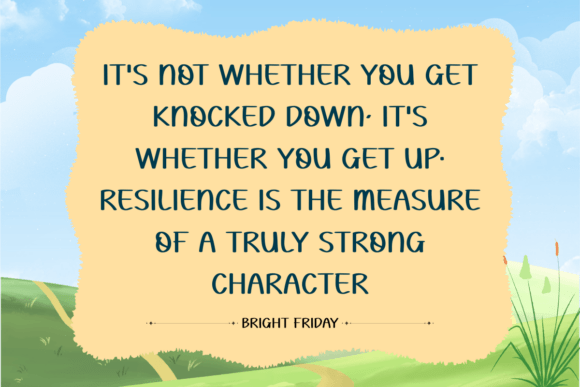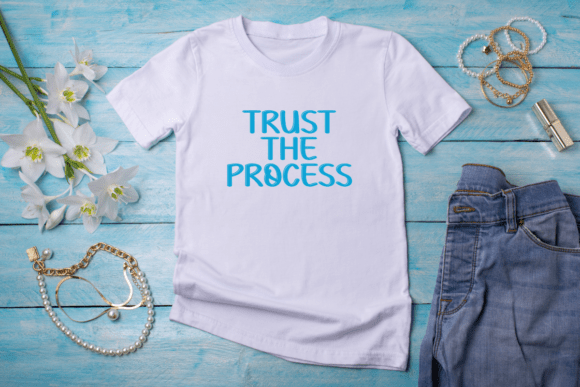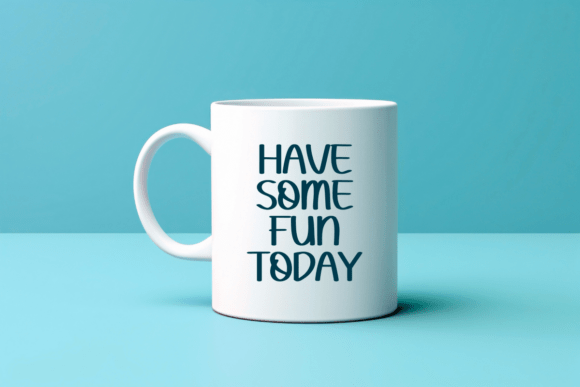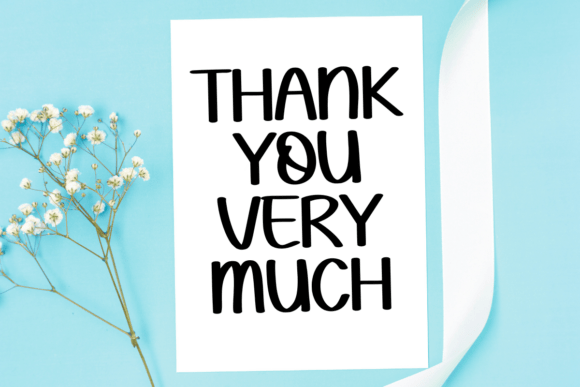
Discover the Uplifting Charm of Bright Friday Font
A Font that Spreads Joy and Positivity
Bright Friday is a cute sans-serif display font that’s full of optimism and clean charm. Its tall, neat letters are crafted to express freshness, joy, and lighthearted energy. The font balances playful personality with professional precision, making it versatile for creative projects that need a cheerful yet modern look. Whether you’re working on posters, brand logos, social media graphics, children’s books, or packaging, Bright Friday instantly brightens up any design with its clear lines and youthful appeal.
So, what do I love about Bright Friday Font? Here are a few highlights:
- ✨ Fresh and Modern Look: Bright Friday has a unique, uplifting quality that makes it perfect for lifestyle brands or creative projects that celebrate brightness, creativity, and approachability.
- ✅ Highly Versatile: This font works beautifully for a wide range of applications, from posters and logos to social media graphics and children’s books.
- ✅ Easy to Read: The clean lines and neat letters make it easy to read, even at smaller sizes.
- ✅ Playful yet Professional: Bright Friday strikes the perfect balance between playfulness and professionalism, making it suitable for both creative and corporate projects.
Now, are there any quirks or limitations? 🤔 A few things to keep in mind:
- ⚠️ Limited Stylistic Options: While Bright Friday has a range of glyphs and stylistic alternates, it’s not as extensive as some other fonts on the market.
- ⚠️ Not Ideal for Body Text: Due to its display nature, Bright Friday is best used for headlines, titles, and short paragraphs, rather than lengthy body text.
The Story Behind Bright Friday Font
Bright Friday Font was designed with the intention of spreading joy and positivity through typography. The designer aimed to create a font that would be both playful and professional, making it perfect for a wide range of creative projects. The result is a font that exudes warmth, friendliness, and approachability.
| What type of projects is Bright Friday Font best suited for? | Bright Friday Font is ideal for posters, brand logos, social media graphics, children’s books, packaging, and any project that requires a cheerful yet modern look. |
| Does Bright Friday Font support OpenType features? | Yes, Bright Friday Font supports OpenType features, including glyphs and stylistic alternates, which can be accessed in compatible design software. |
| Is Bright Friday Font easy to read? | Yes, Bright Friday Font is designed to be clear and easy to read, even at smaller sizes, making it perfect for a wide range of applications. |